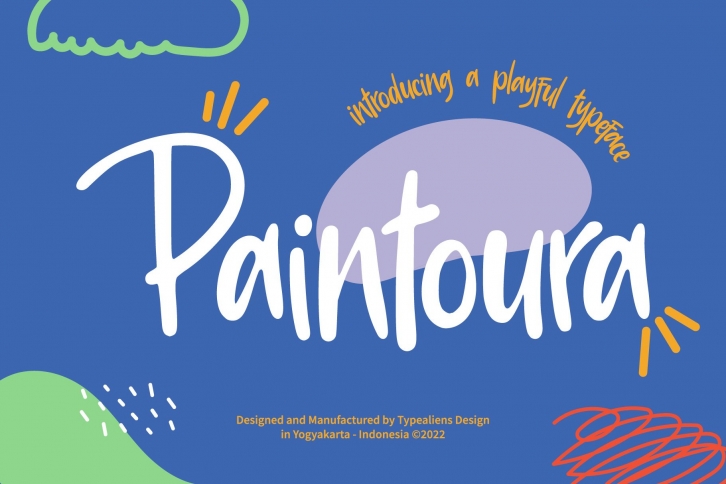
Paintoura is a gorgeous font that was realeased on March 18, 2022. The font can be used in many style contexts and design environments. Perfect for invitations, magazines, websites, logos, and more! It was designed by llhamtaro and the file size is 1.6 MB. Thanks for checking out this font!